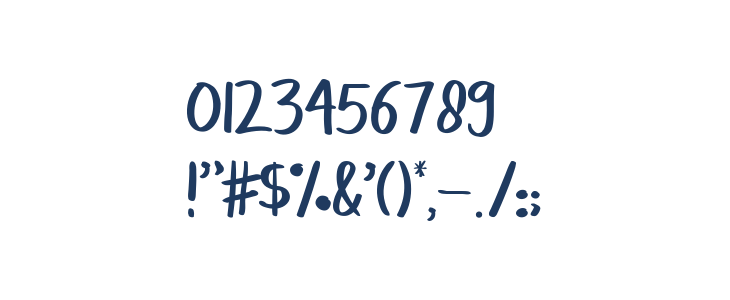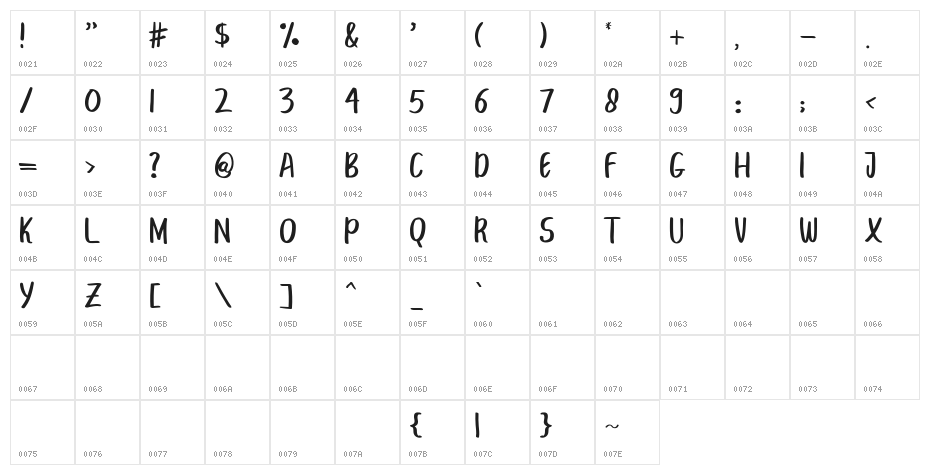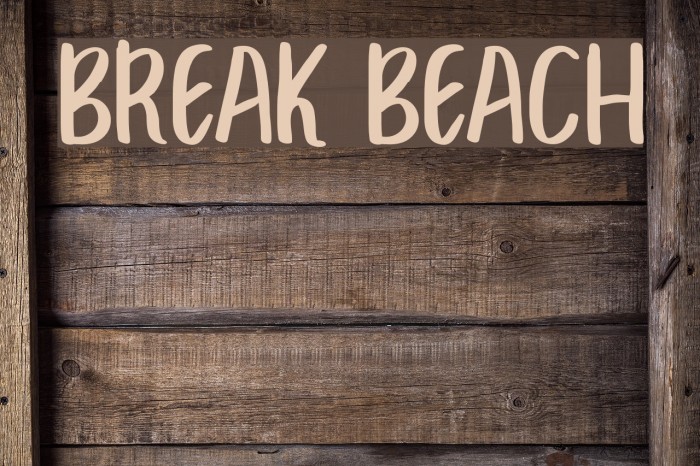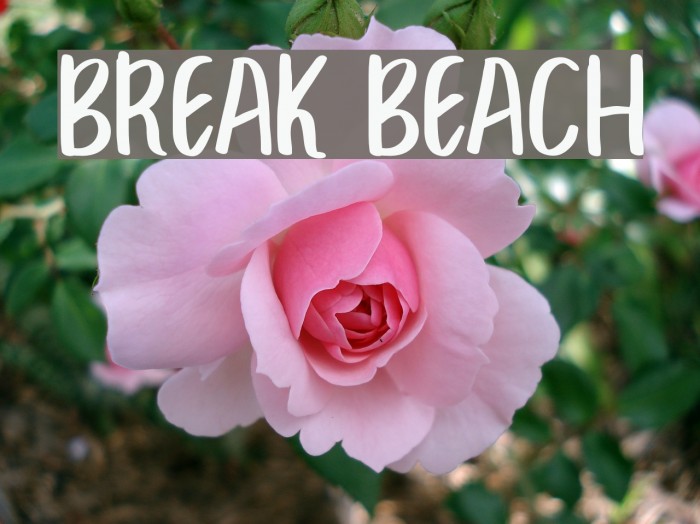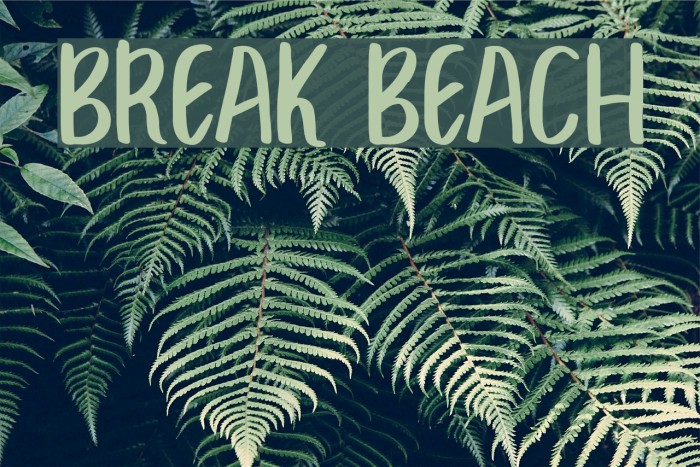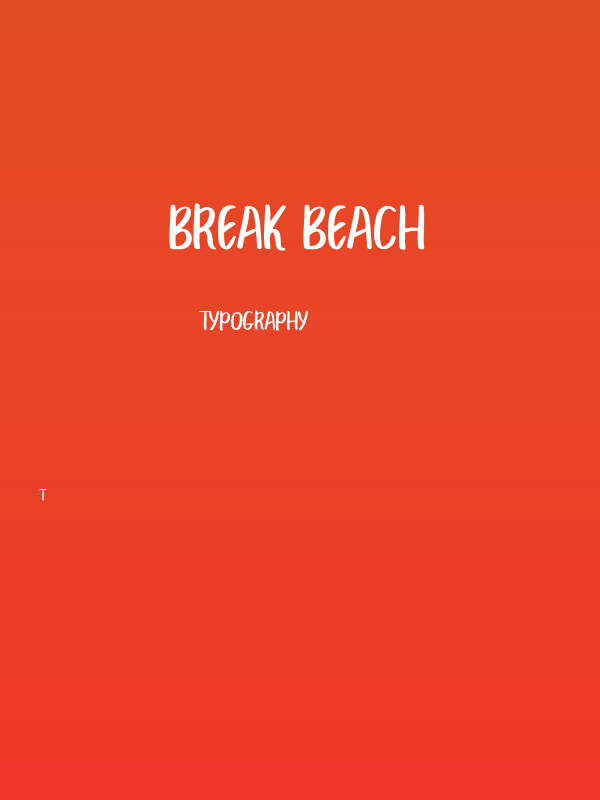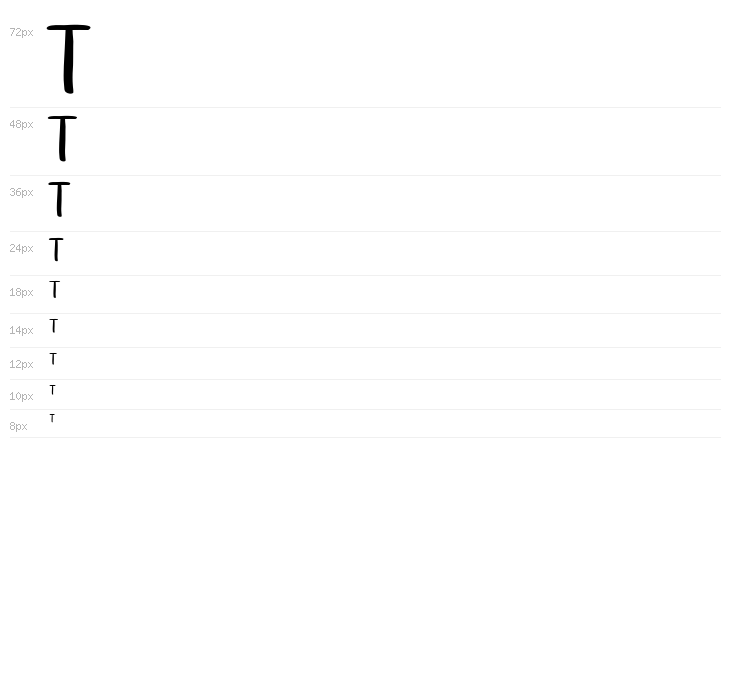
BREAK BEACH Font
BREAK BEACH Description
This font features a playful and casual handwritten style, characterized by its bold and slightly irregular strokes. The letters have a smooth, flowing appearance, with rounded edges that give it a friendly and approachable feel. The uppercase and lowercase letters maintain a consistent style, with a slight slant that adds to its dynamic look. The numerals and special characters are designed to match the overall aesthetic, ensuring a cohesive appearance across all text elements. This font is ideal for projects that require a personal touch, such as invitations, greeting cards, or branding for creative businesses.
| Use Case | Headlines, Logos, Casual Text |
| Proposed Projects | Ideal for invitations, greeting cards, creative branding, and casual design projects. |